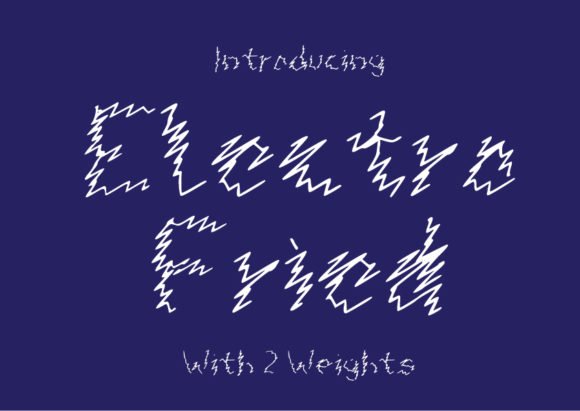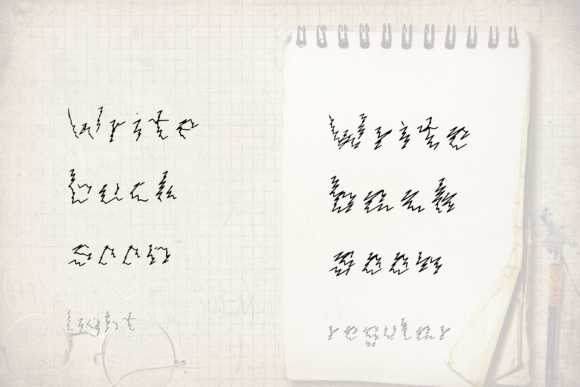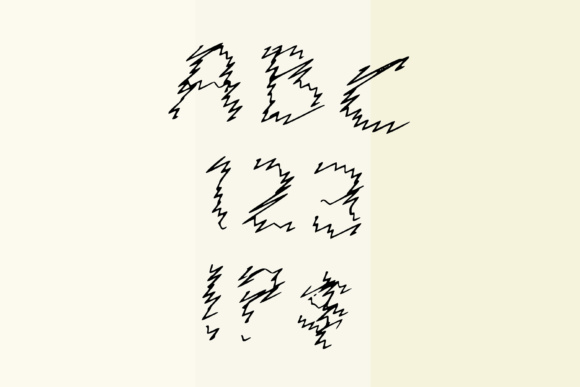
Get Ready to Shock Your Design Game
Have you ever been in the middle of a creative project, staring at a blank page, and suddenly a spark of inspiration hits you? It’s that moment when the ideas start flowing, and your imagination runs wild. For designers, this feeling is like a shot of adrenaline, and it’s exactly what the Electro Fried Font is all about.
This electrifying font is designed to add a touch of excitement to any design project. With its playful, energetic vibe, the Electro Fried Font is perfect for creating eye-catching headlines, social media graphics, or even a quirky logo. Whether you’re a seasoned designer or just starting out, this font is sure to give your work a unique and memorable twist.
Electro Fried Font Key Features
- Font Family: Electro Fried Font comes in a single font family, offering a unique and bold display.
- Character Count: The font includes a wide range of characters, including uppercase and lowercase letters, numbers, and special characters.
- Unique Characteristics: The font features a distressed, electro-fried aesthetic with bold lines, glowing effects, and a futuristic feel.
Designer Review: Electro Fried Font
First impressions of the Electro Fried Font are quite striking. ✨ The unique blend of futuristic and playful elements is reminiscent of retro-futuristic aesthetics, which could be an excellent choice for sci-fi or tech-related projects.
The font’s custom-designed characters add to its charm, making it stand out from more generic sans-serif fonts. ✨ The bold and italic styles also offer a lot of versatility, allowing designers to experiment with different layouts and compositions.
However, there are some limitations to consider. ⚠️ The font’s legibility, particularly at smaller sizes, could be improved. Some characters may appear slightly distorted or inconsistent, which might affect readability.
Additionally, the font’s weight range could be more comprehensive, especially in terms of light and condensed styles. ⚠️ This might limit its use in certain design contexts, such as body text or captions.
The Electro Fried Font has potential, but its limitations need to be addressed. With some refinements, it could become a valuable addition to any designer’s toolkit. As it stands, it’s best suited for projects that require a bold, attention-grabbing aesthetic.
Electro Fried Font is ideal for creating futuristic, high-tech designs and logos.
Use it for headings, titles, and other large text elements to create a striking visual effect.
Experiment with different font sizes, colors, and combinations to achieve unique and eye-catching results.
Alternatives to Electro Fried Font
1. Electroline
Electroline is a futuristic sans-serif font that features clean lines and geometric shapes. It is ideal for use in tech-related designs, such as apps, websites, and video games. Compared to Electro Fried Font, Electroline has a more minimalist approach and is better suited for designs that require a clean and modern look.
2. Felt Tip Roman
Felt Tip Roman is a bold and playful font that features a unique, hand-drawn feel. It is perfect for use in creative and artistic designs, such as logos, posters, and advertisements. Unlike Electro Fried Font, Felt Tip Roman has a more casual and relaxed tone, making it ideal for designs that require a sense of personality and whimsy.